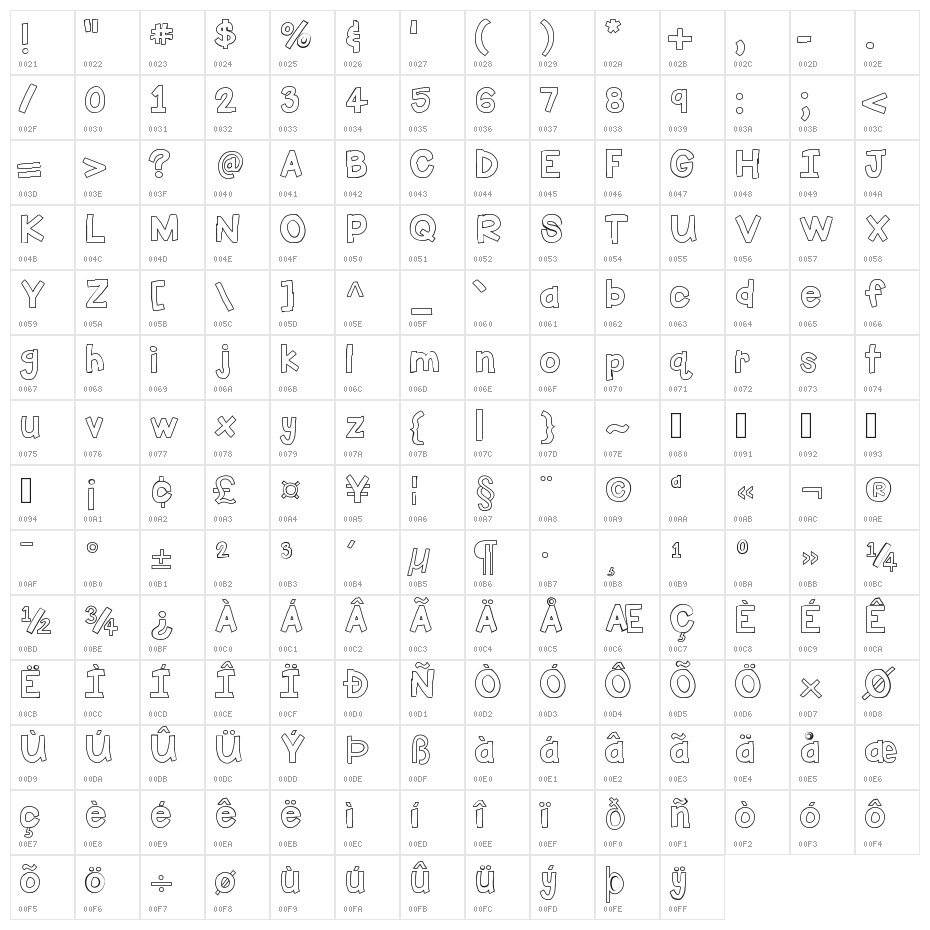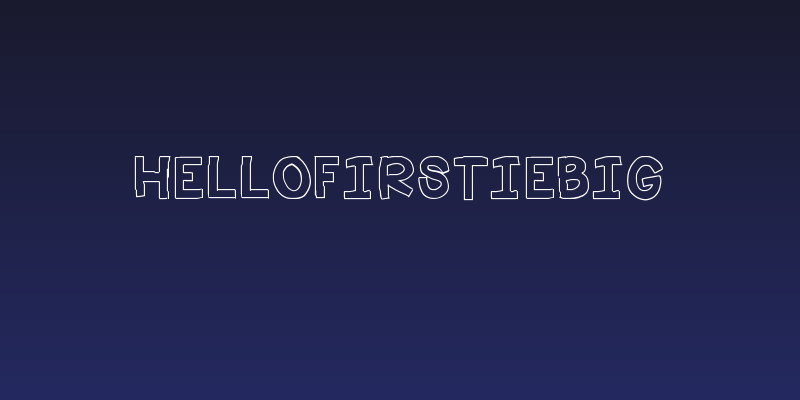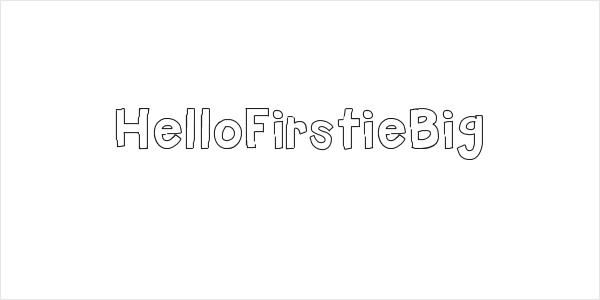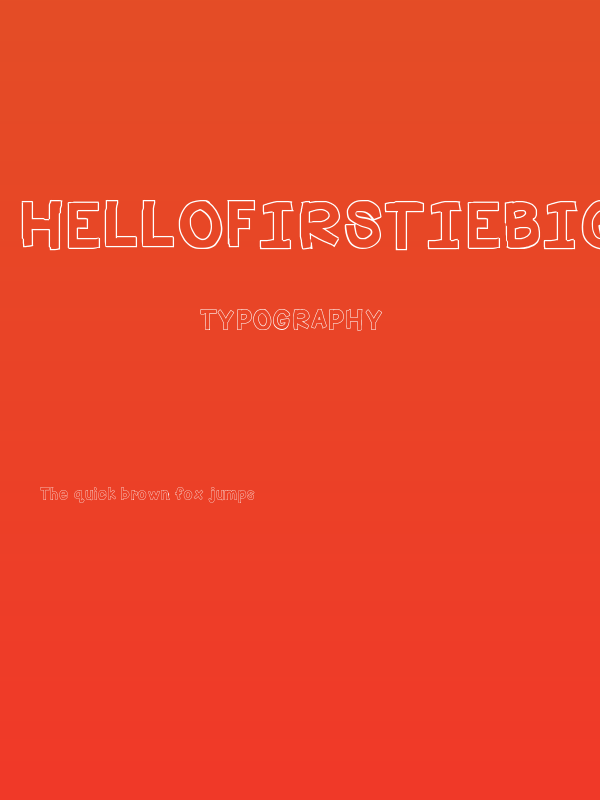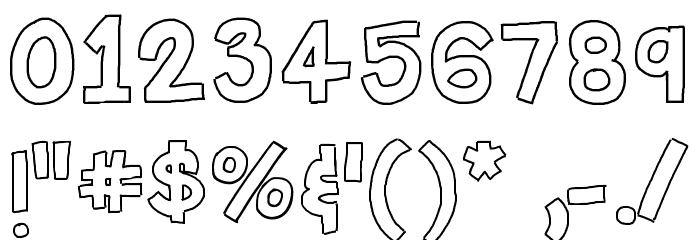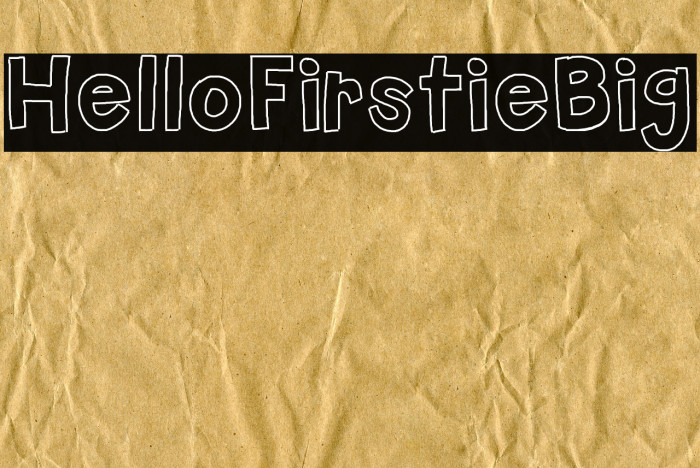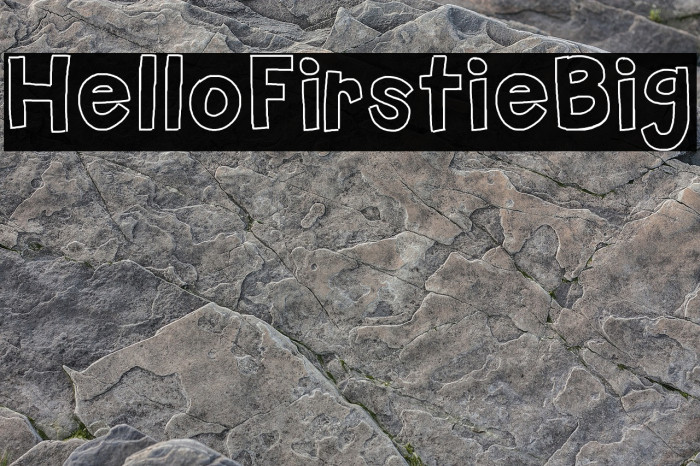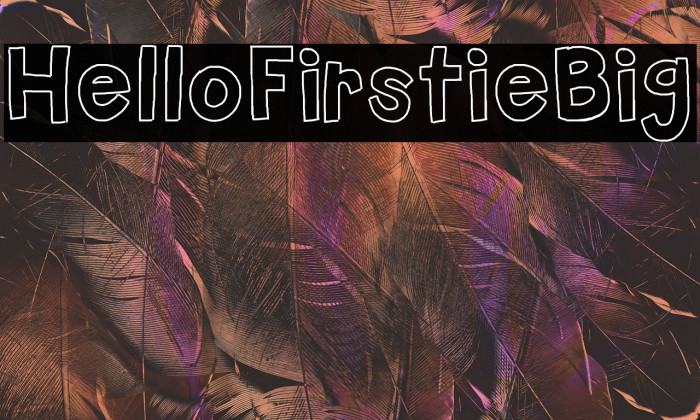
HelloFirstieBig Font
HelloFirstieBig Description
This playful and bold font features a hand-drawn, outlined style that exudes a sense of fun and creativity. The characters are slightly irregular, adding a whimsical touch that makes it stand out. The uppercase and lowercase letters maintain a consistent style, with rounded edges and a casual feel. Numbers and special characters are designed to match the playful aesthetic, making this font versatile for various creative projects. Its outlined nature allows for color customization, enhancing its appeal for vibrant designs.
| Overall Style | Playful, Creative |
| Proposed Projects | Ideal for children's books, playful branding, creative posters, and DIY projects. |